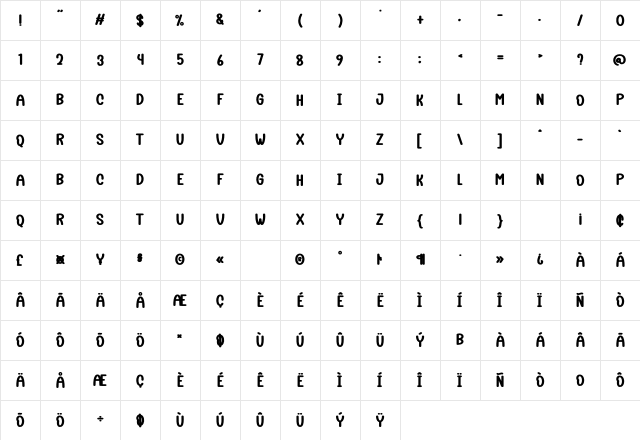
Pine Santa Regular
Design Context for Pine Santa
Pine Santa is a composed and adaptable typeface that performs quietly and consistently across a wide range of design contexts.